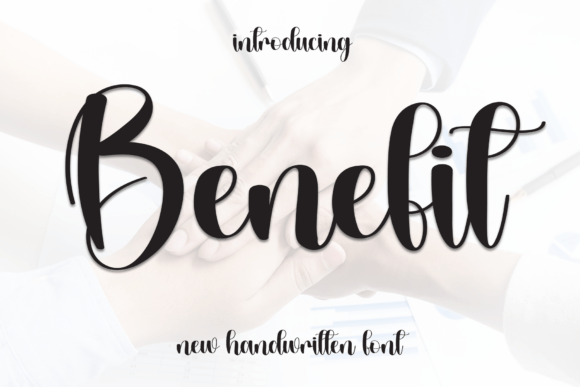
The Designer’s Delight: Unleashing the Power of Benefit Font
I’ll never forget the time I was working on a branding project for a trendy boutique hotel. My client wanted a logo that exuded elegance and sophistication, but I was struggling to find the perfect font. That’s when I stumbled upon Benefit Font, a stylish script font that instantly caught my eye. With its fluid brush strokes, dynamic curves, and expressive letterforms, it was love at first sight! ✨
- ✅ The natural flow and vibrant character of Benefit Font make it perfect for adding a creative and sophisticated touch to any design.
- ✨ The font’s modern twist on hand-painted calligraphy gives it a unique and artistic flair.
- 💫 It’s incredibly versatile and can be used for logos, invitations, packaging, and social media graphics.
- 🎨 The font’s expressive letterforms and dynamic curves make it perfect for designs that require a bit of personality.
While Benefit Font is an amazing font, it’s not perfect. ⚠️ One thing to note is that it can be a bit tricky to read at smaller sizes, so it’s best used for headlines or titles rather than body text. 🤔 Additionally, some of the more intricate letterforms can be a bit finicky when it comes to kerning, so be prepared to do some manual adjustments.
The Story Behind Benefit Font
Benefit Font was designed by a team of creatives who wanted to capture the essence of hand-painted calligraphy with a modern twist. Inspired by the works of famous calligraphers and artists, they set out to create a font that would be both elegant and artistic. The result is a font that exudes sophistication and creativity, perfect for designers who want to add a touch of personality to their work.
Q: What type of designs is Benefit Font best suited for?
A: Benefit Font is perfect for designs that require a creative and sophisticated touch, such as logos, invitations, packaging, and social media graphics.
Q: Is Benefit Font easy to read?
A: Benefit Font is designed to be elegant and artistic, but it can be a bit tricky to read at smaller sizes. It’s best used for headlines or titles rather than body text.